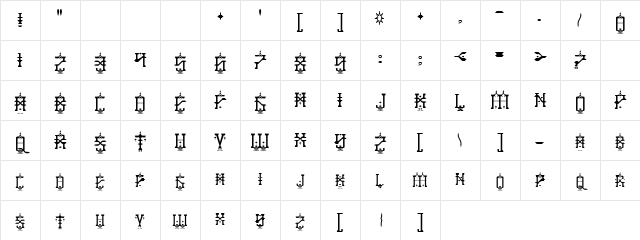
Baby Jeepers Regular
Design Context for Baby Jeepers
Baby Jeepers is a composed and adaptable typeface that performs quietly and consistently across a wide range of design contexts.
Pro Tip: Use Baby Jeepers in both headline and body roles to test its range before committing to a single application.